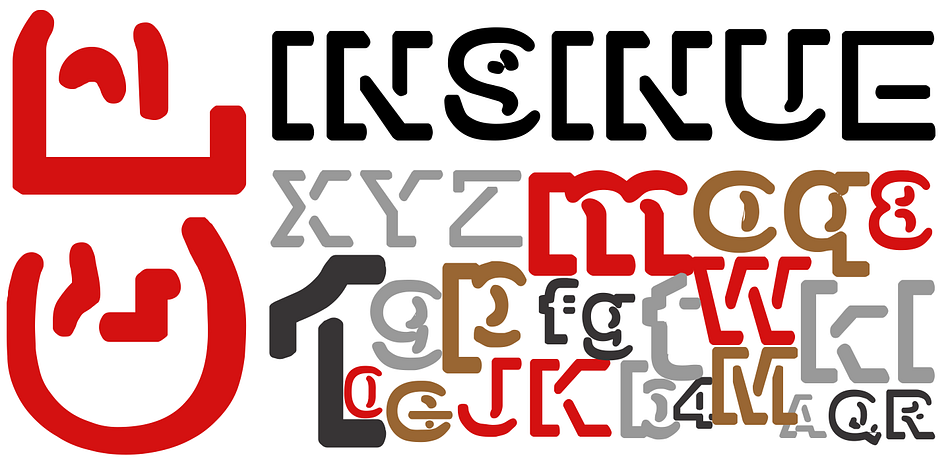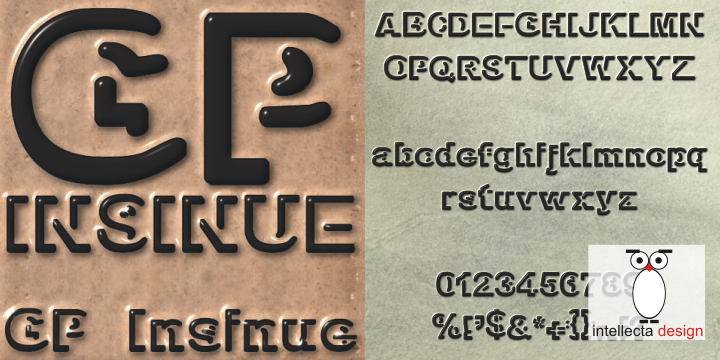
Insinue
Designed by Paulo W, Insinue is a display sans font family published by Intellecta Design.
An embossed sans serif bol font… good for modern project and titles